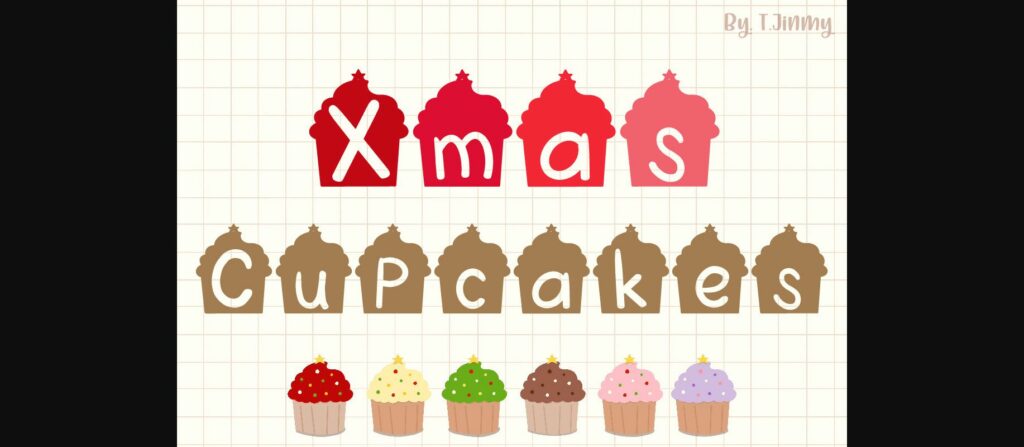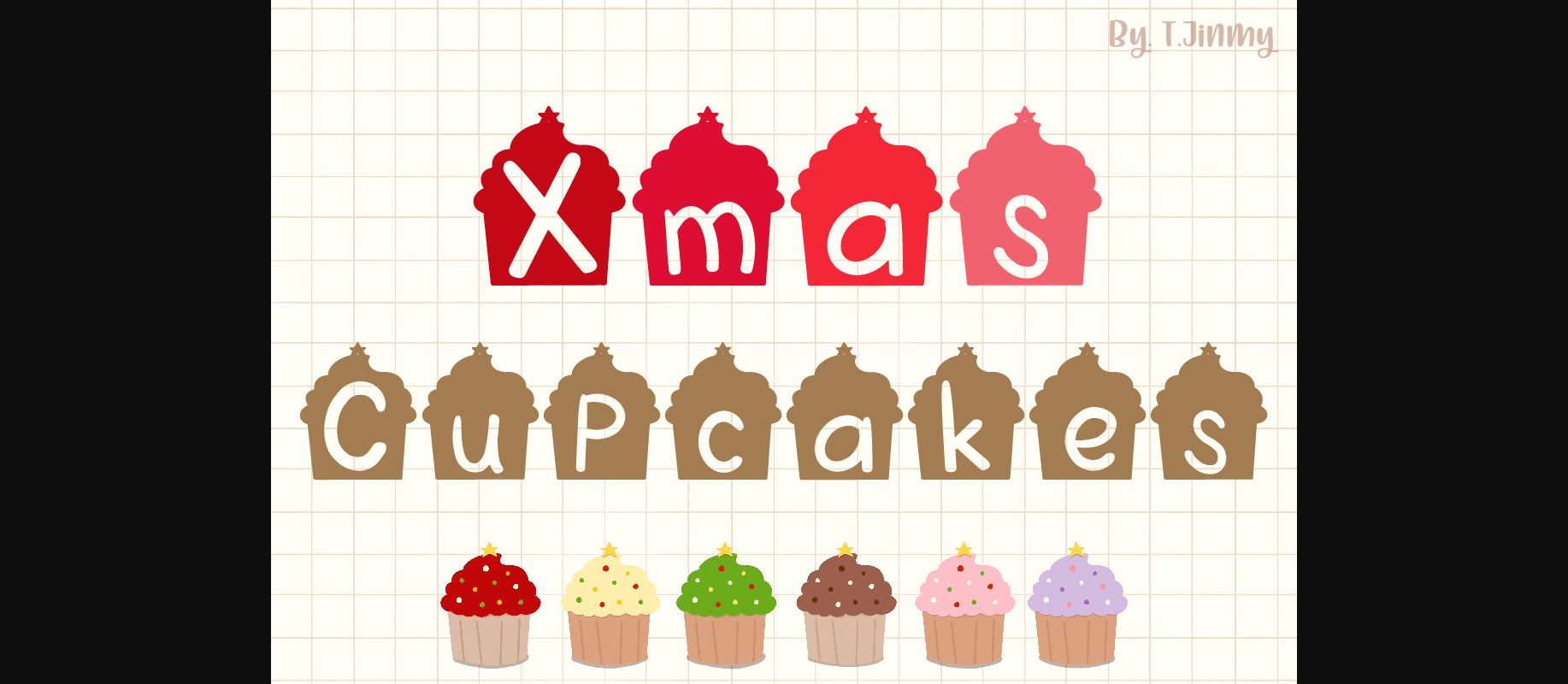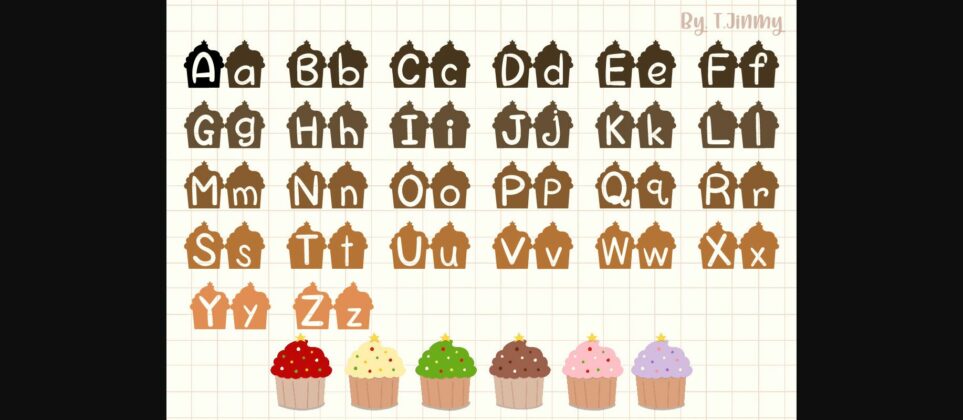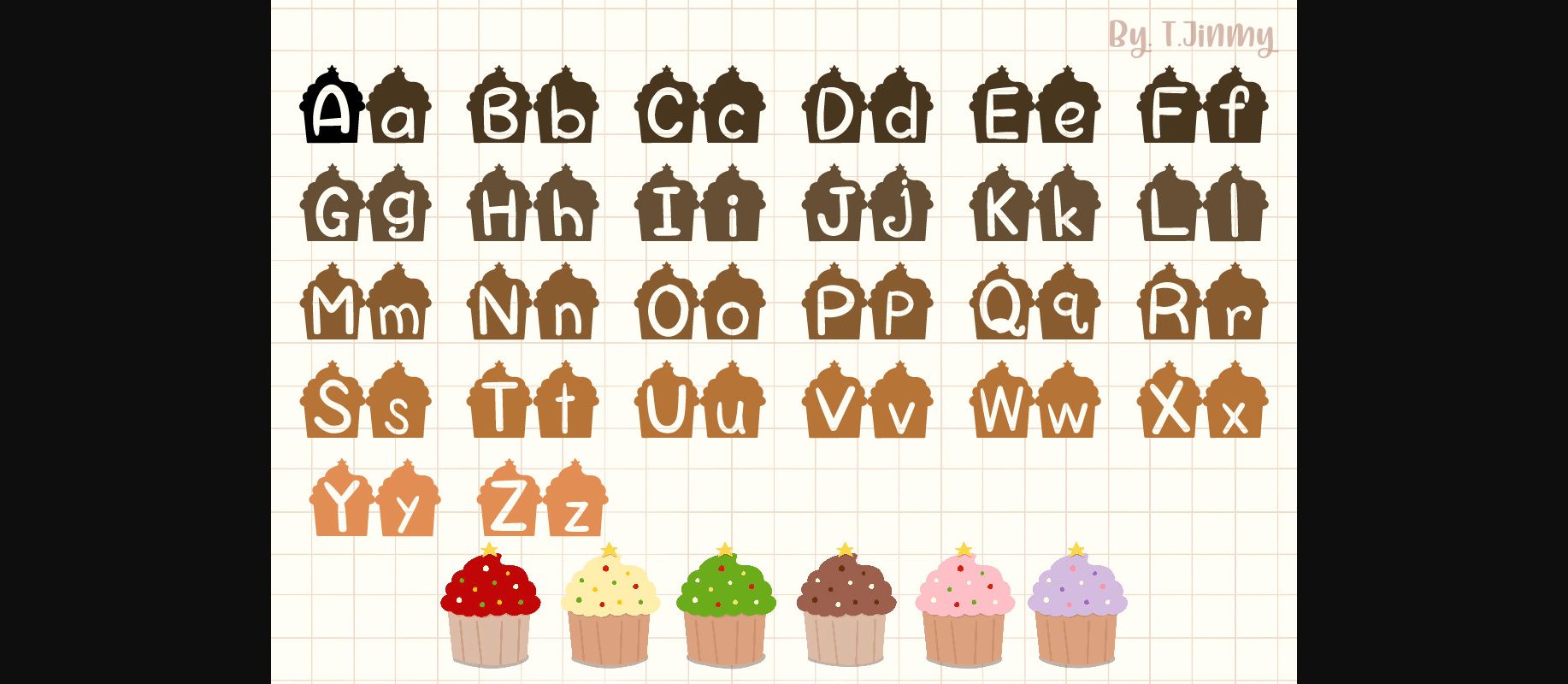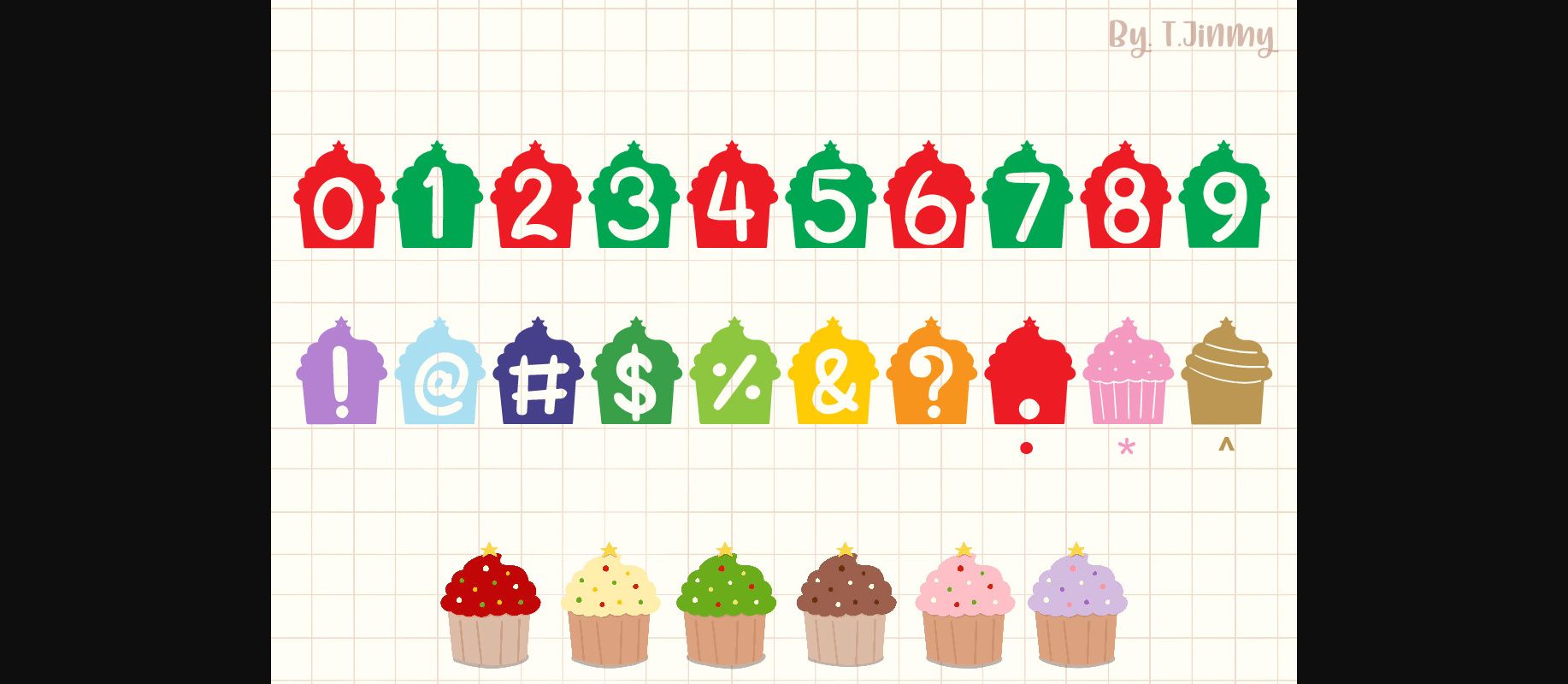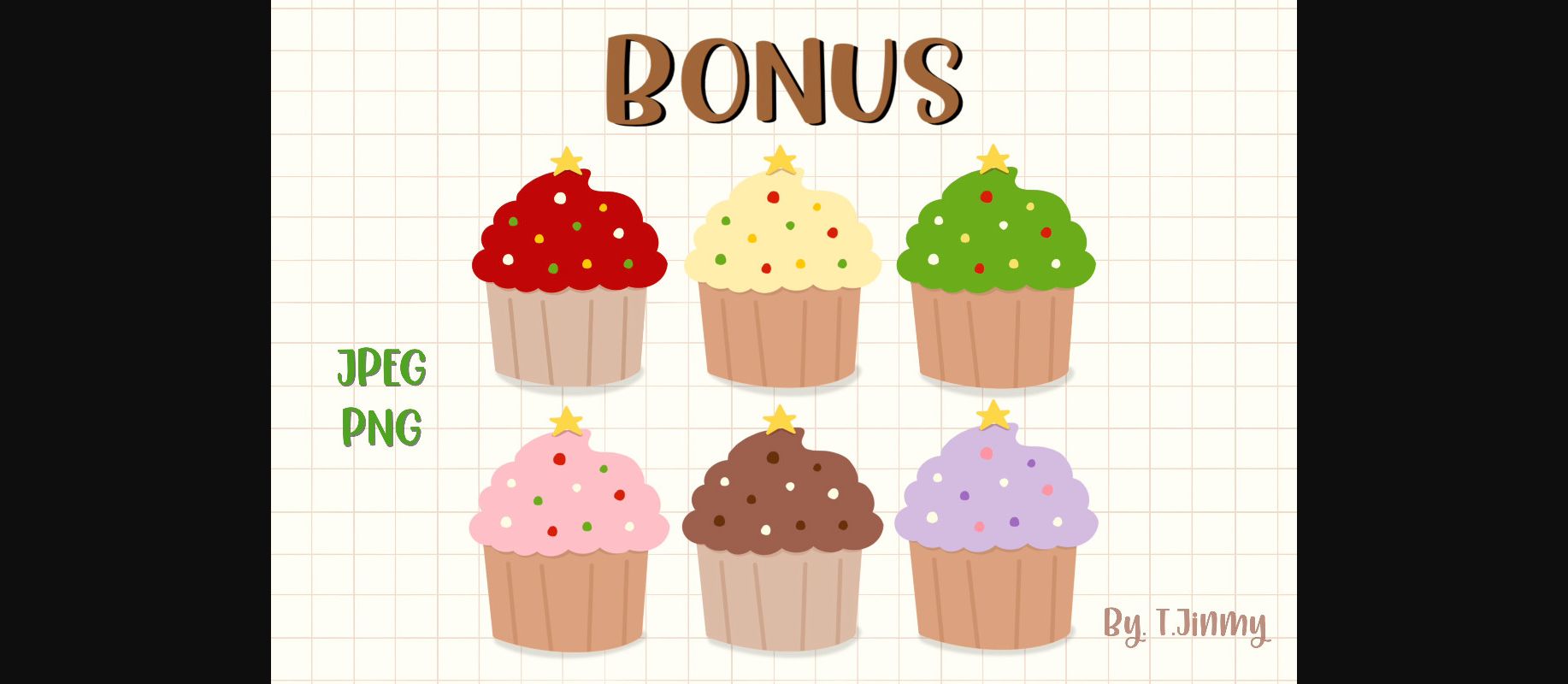
Xmas Cupcakes is a cute decorative font. It is the perfect fit for all of your bakery logos, branding, social media, crafty DIY projects, and much more!